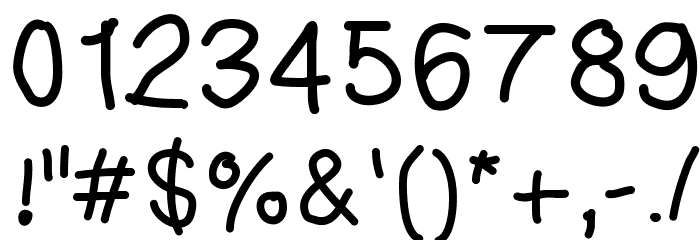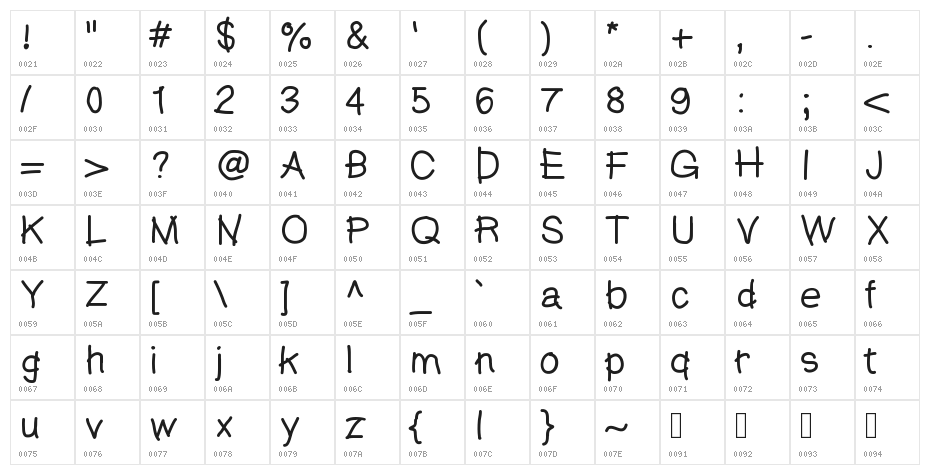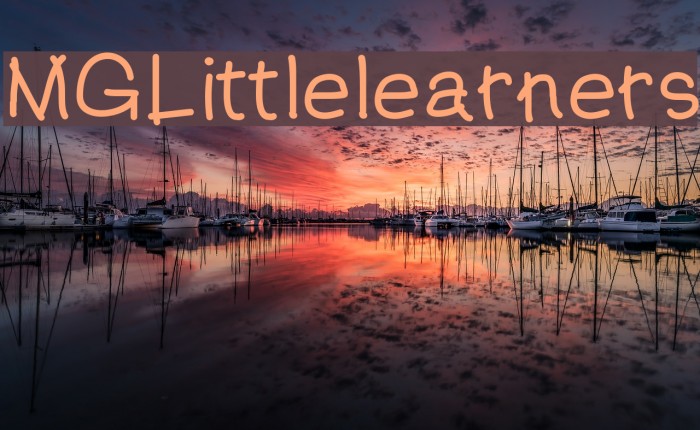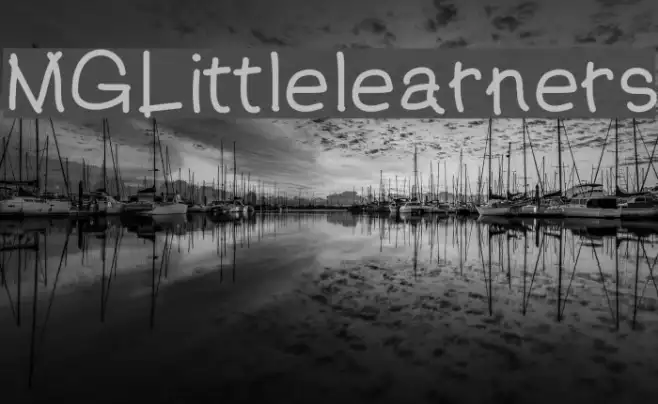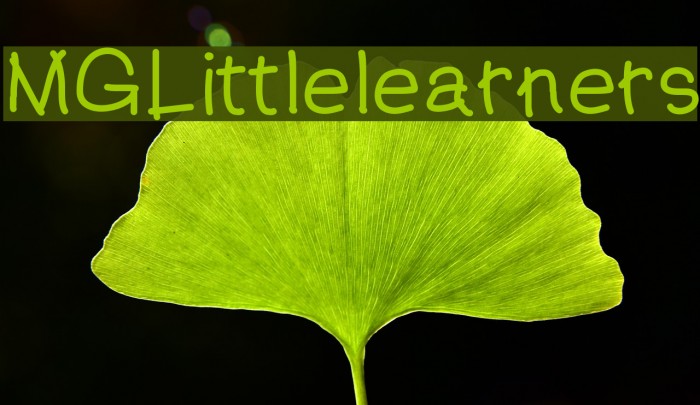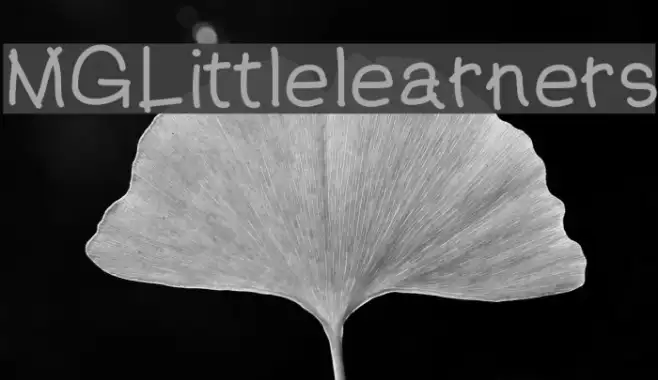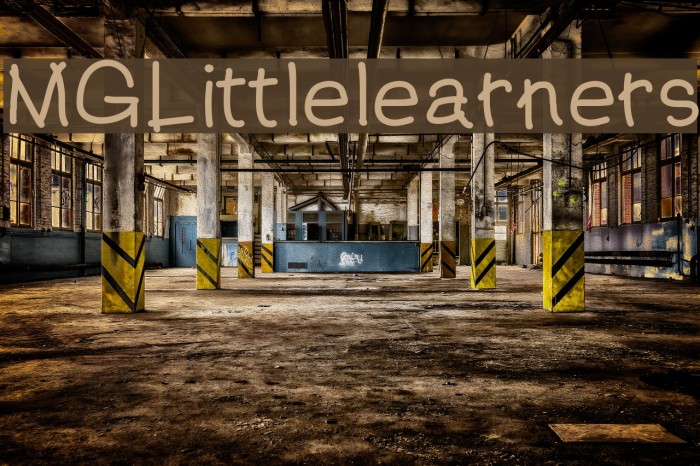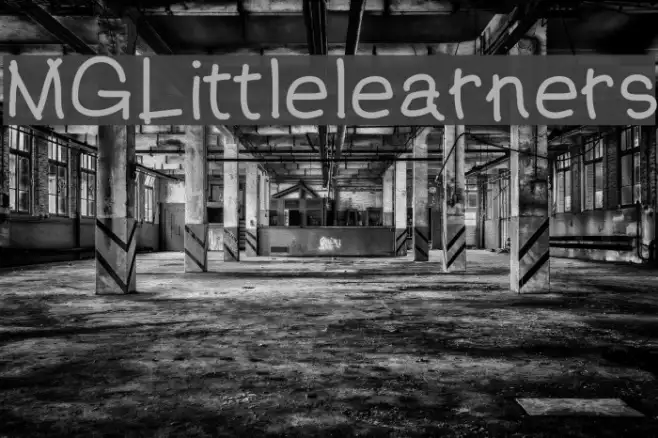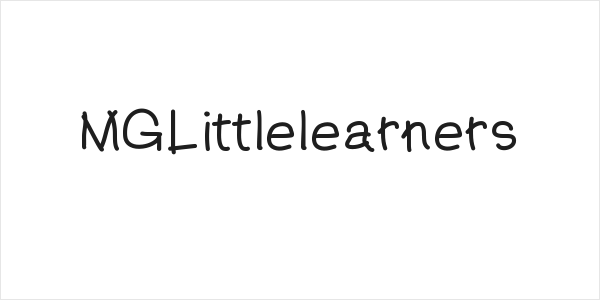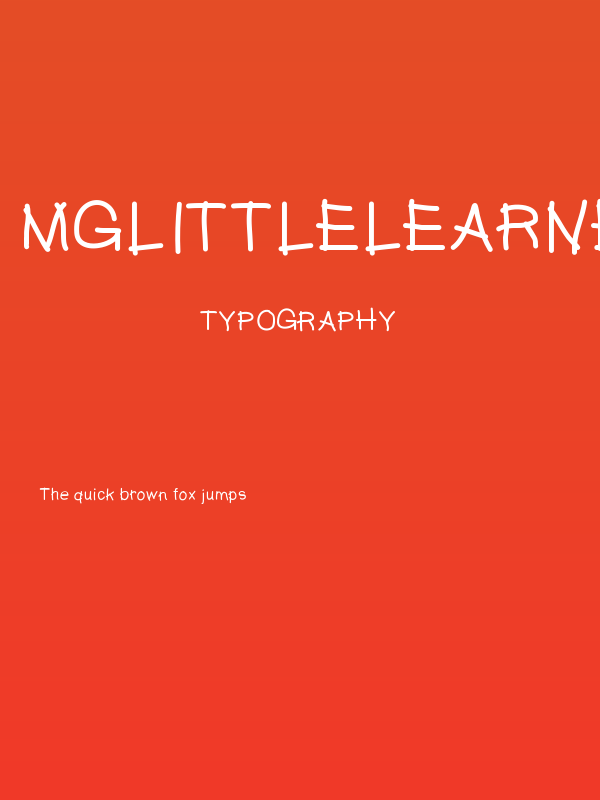
MGLittlelearners Font
MGLittlelearners Description
This playful and whimsical font features a handwritten style that is both approachable and friendly. The characters are slightly irregular, giving it a casual and informal appearance. The strokes are consistent in thickness, providing a uniform look across all characters. The font includes both uppercase and lowercase letters, numbers, and a variety of special characters, making it versatile for different uses. Its rounded edges and smooth curves enhance its readability, making it suitable for children's materials or creative projects.
| Use Case | Headlines, Children's materials, Creative projects |
| Proposed Projects | Ideal for children's books, educational materials, greeting cards, and playful branding. |